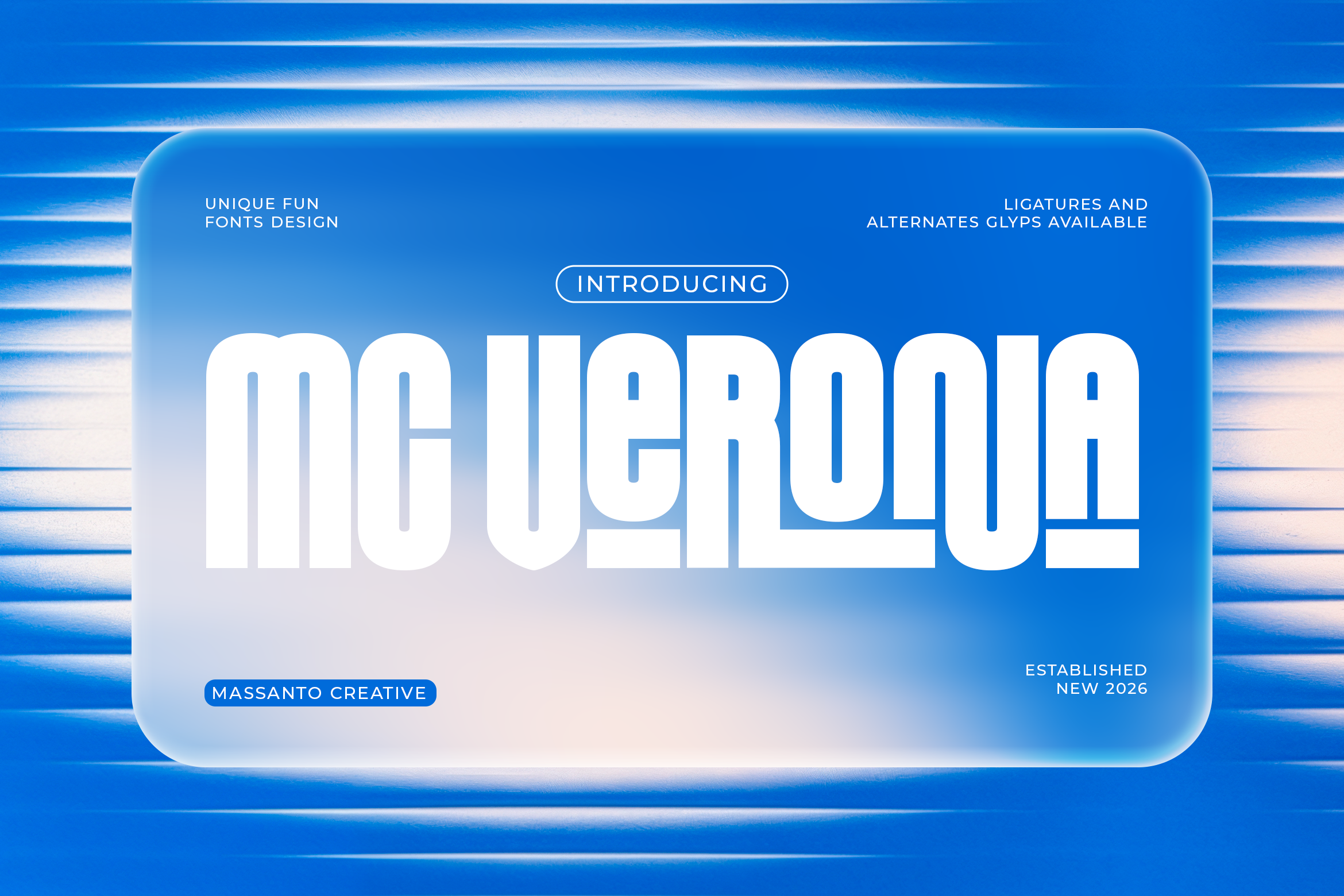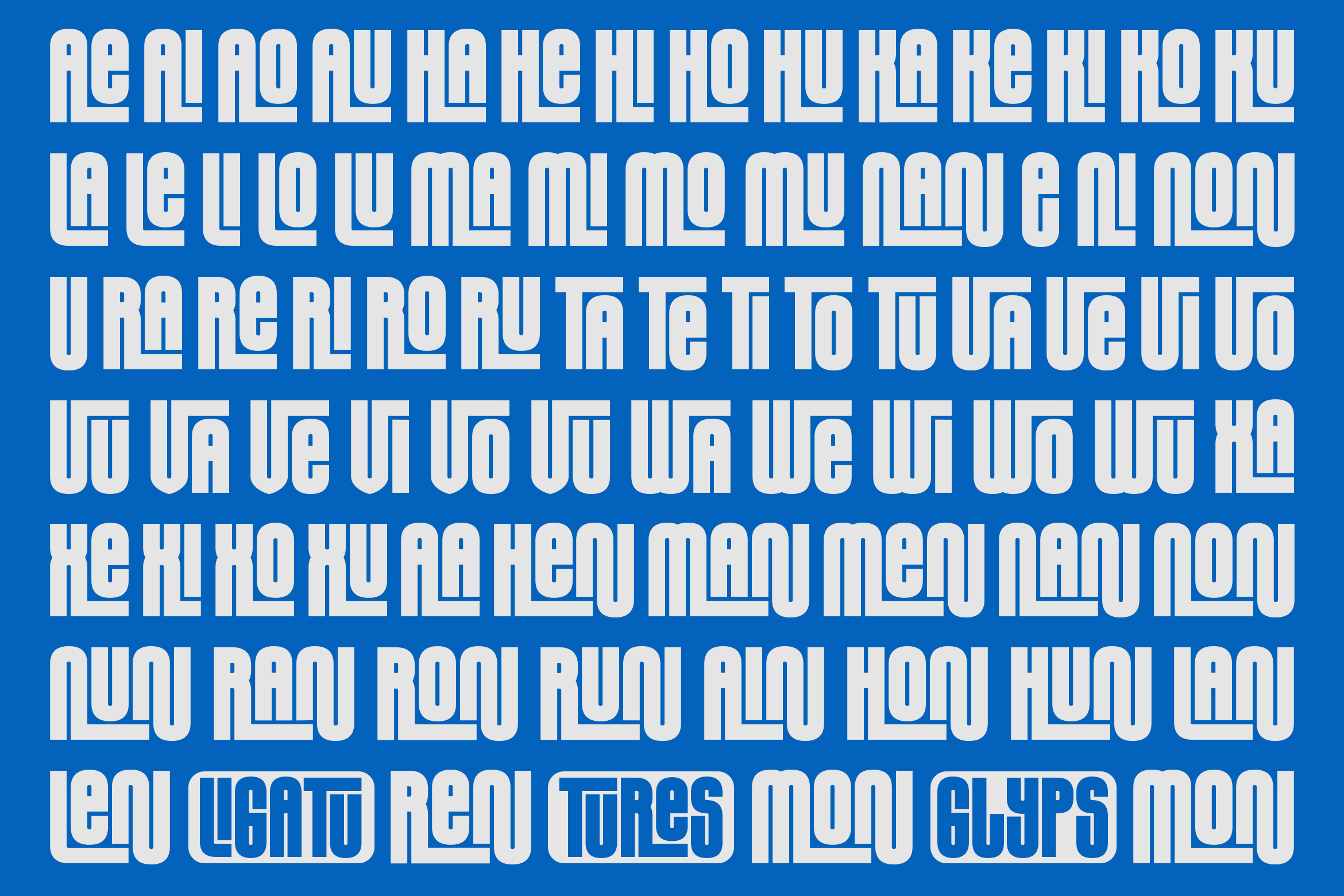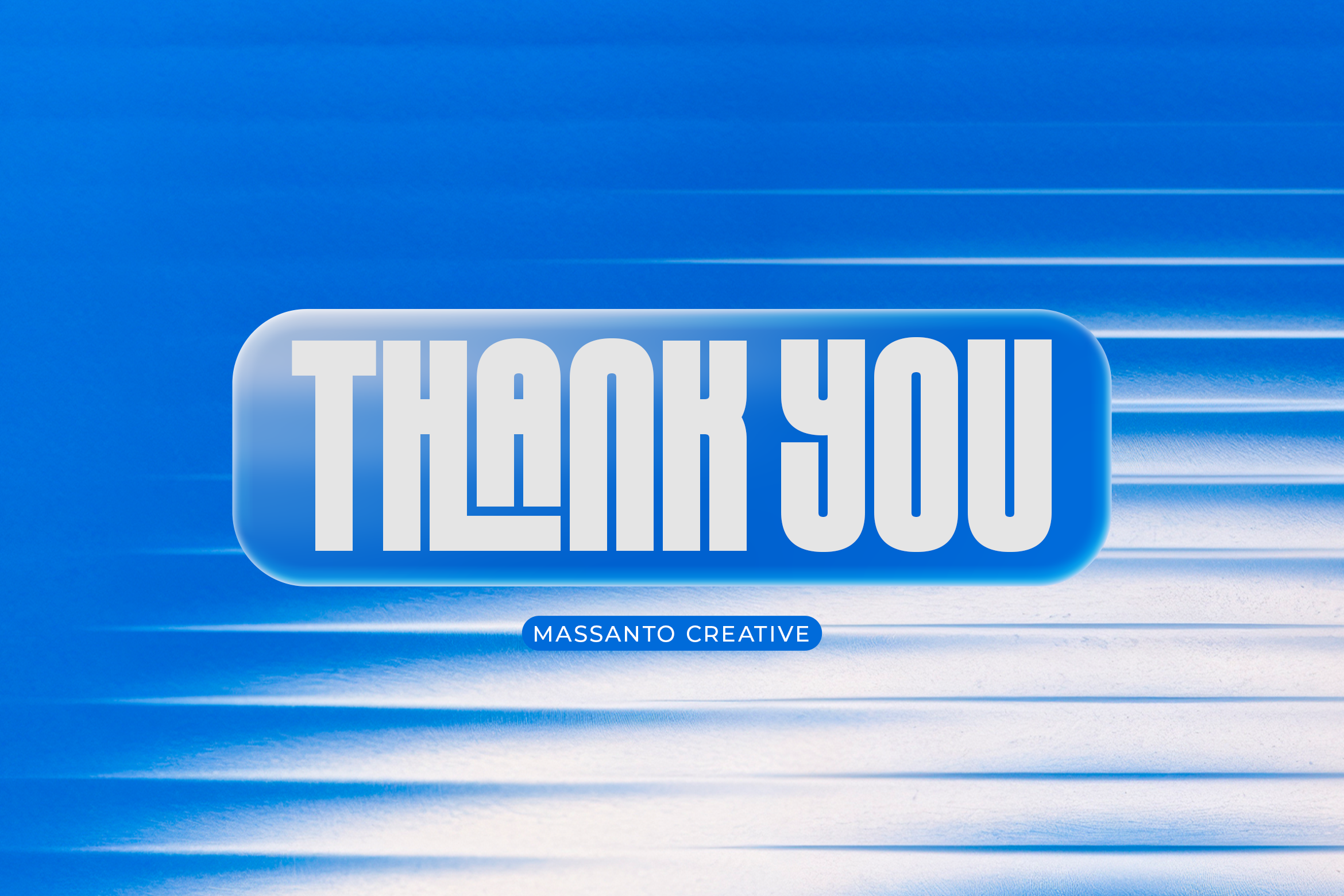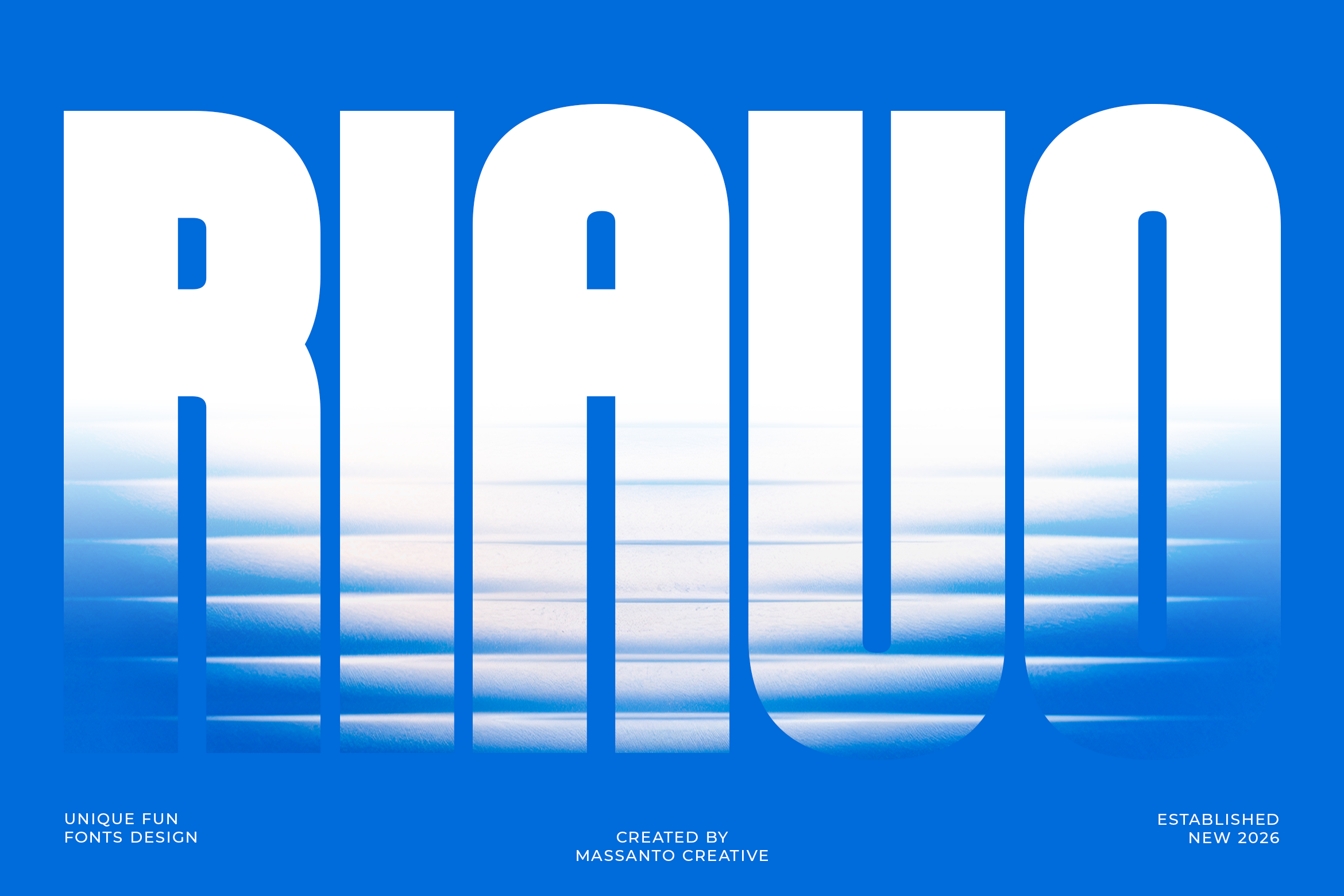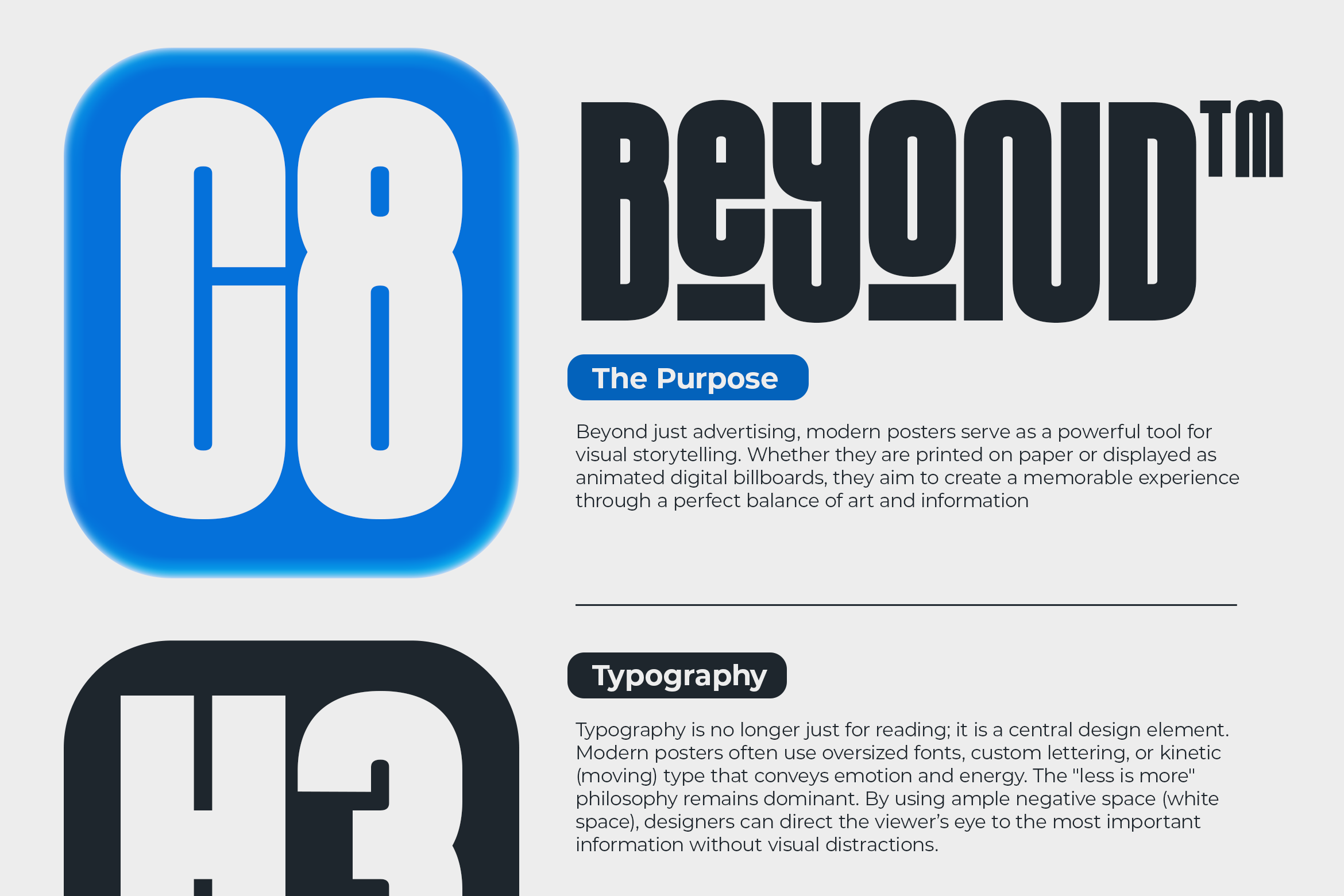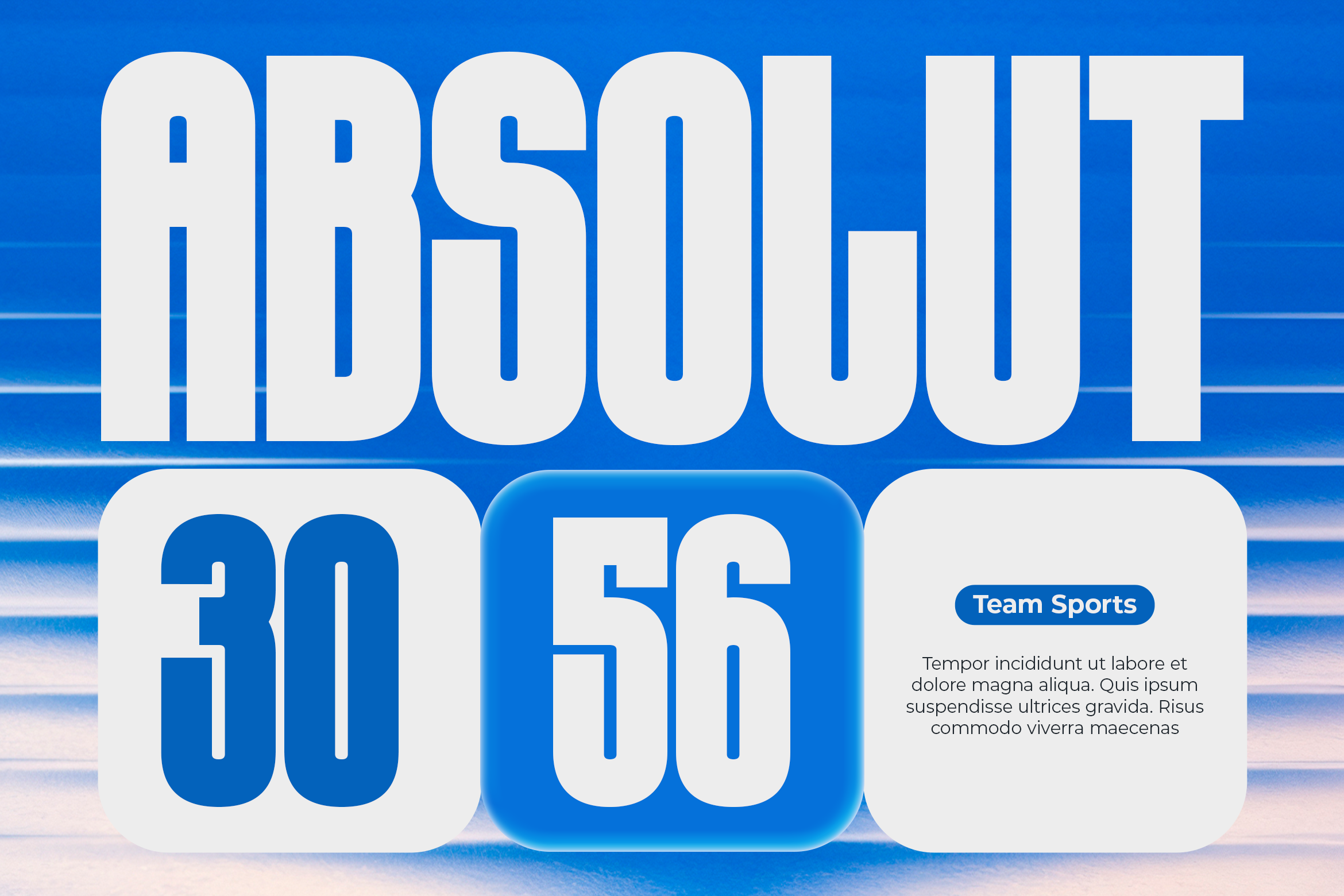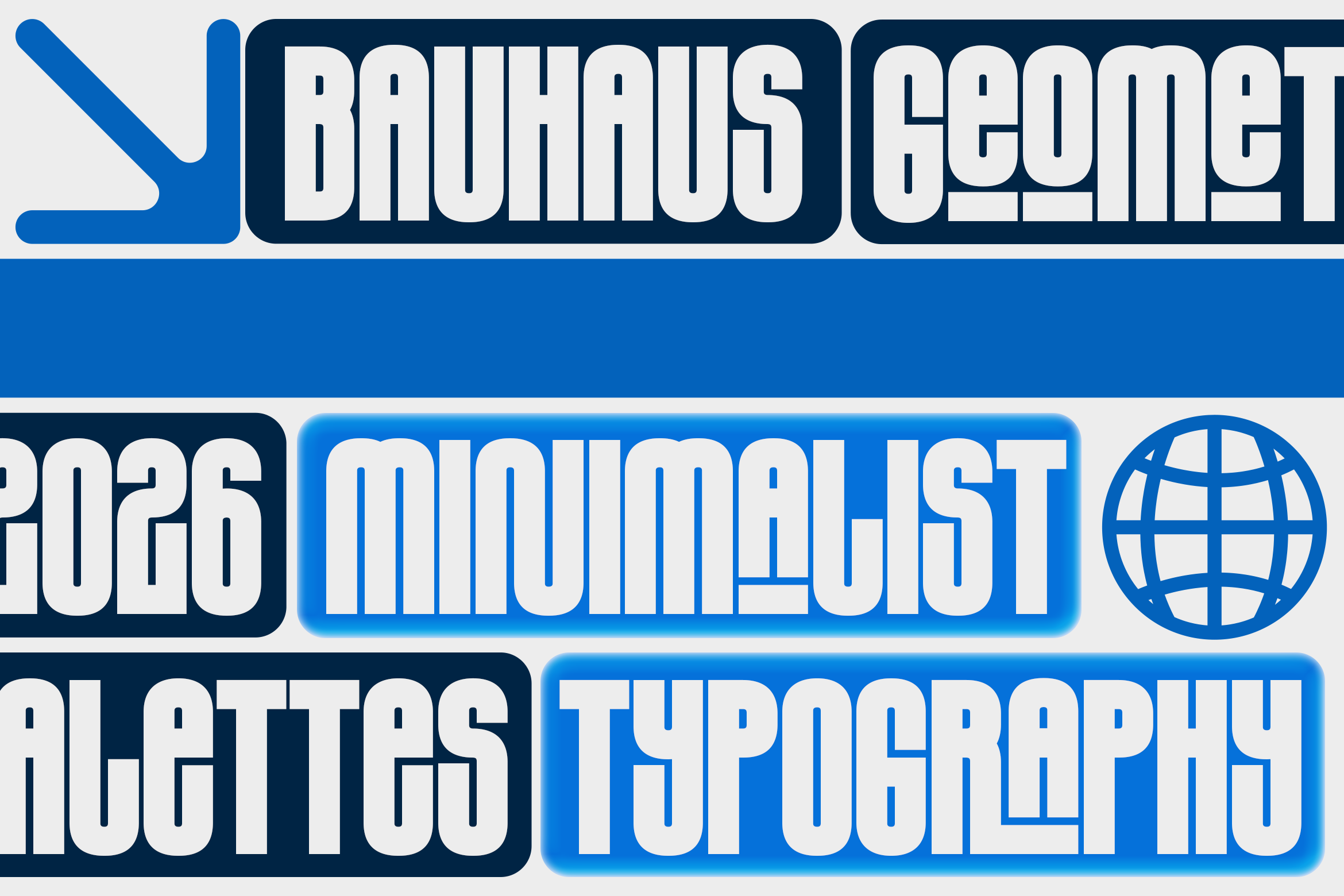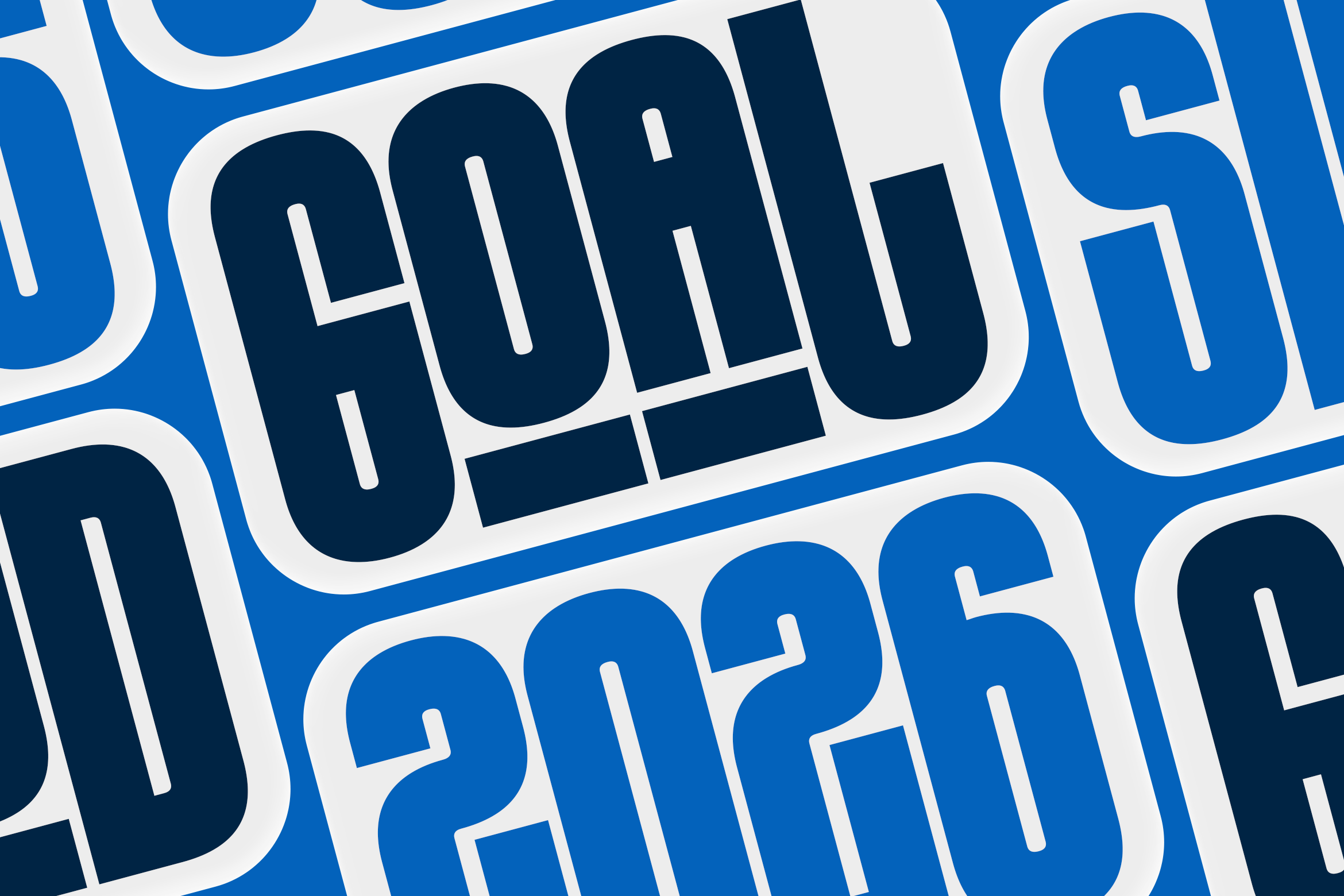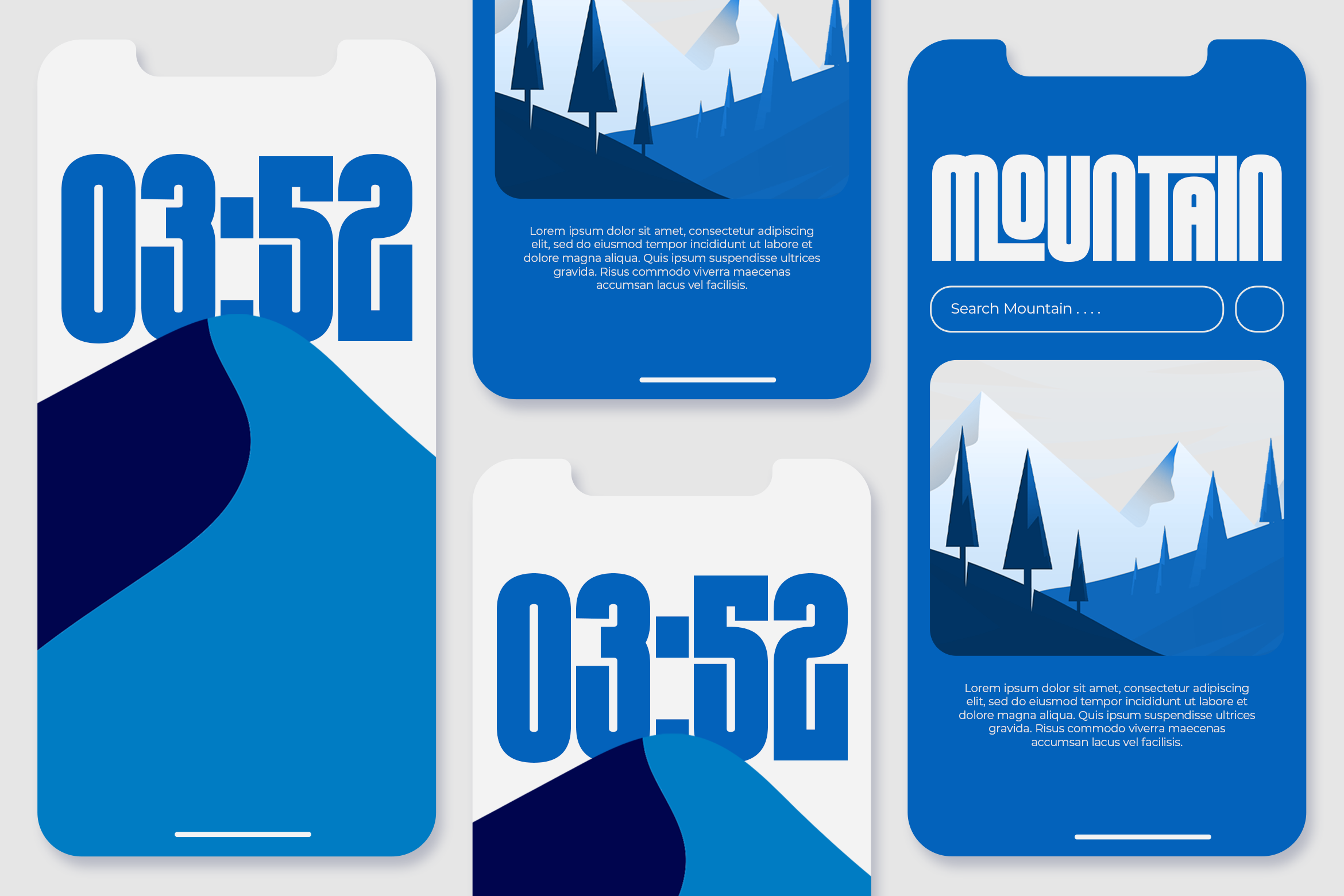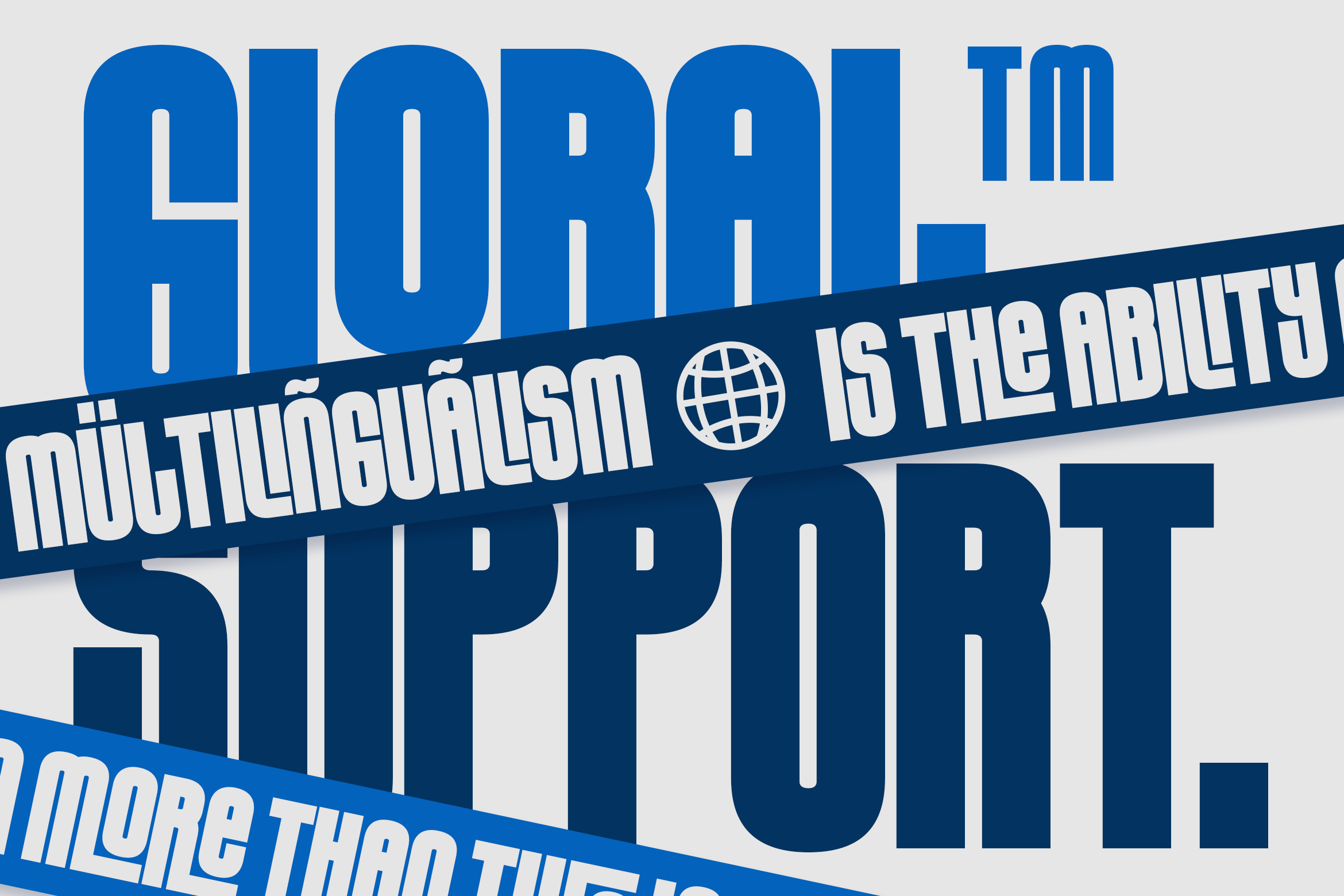
MC Verona – Bold Modern Display Font
About MC Verona – Bold Modern Display Font
MC Verona is a bold modern display font crafted for impactful and confident visual communication. Designed with wide proportions, rounded corners, and strong geometric shapes, this font delivers a powerful yet clean aesthetic suitable for contemporary design needs.
Perfect for sports branding, posters, headlines, logos, packaging, editorial layouts, and advertising, MC Verona brings a modern and energetic character while maintaining excellent readability. Its minimalist structure makes it versatile for both digital and print applications.
Whether you are working on branding systems, apparel graphics, social media visuals, or promotional designs, MC Verona provides a strong typographic presence that stands out and communicates clarity, strength, and modern style.
• 75 Ligature & Stylistic alternate
Features
• Uppercase letters
• Numerals & punctuation
• Bold modern display style
• Sporty & minimalist character
Applications
• Sports branding
• Logo & identity design
• Posters & headlines
• Editorial & magazine layouts
• Apparel & merchandise
• Advertising & marketing materials